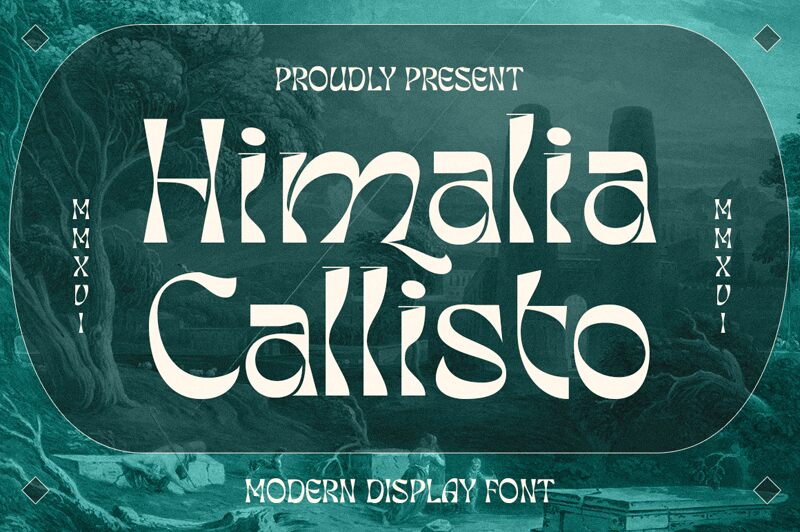
Himalia Callisto, a captivating display font crafted by Dora Typefoundry, exudes a groovy and retro-inspired aesthetic. With its bold, geometric letterforms and distinct character, this font commands attention, effortlessly evoking a sense of vintage charm and a touch of playfulness.
The Himalia Callisto font's striking features, including its sharp angles, rounded terminals, and unique flourishes, make it an ideal choice for a variety of design applications, ranging from eye-catching headlines and impactful logos to retro-themed branding and vintage-inspired packaging. Its versatility allows it to seamlessly integrate into projects that seek to capture a sense of nostalgia, while maintaining a modern and engaging visual appeal.